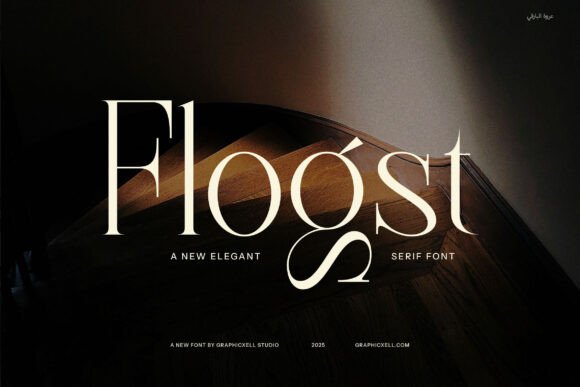
Flogst Font: Elevate Your Design with Elegance and Sophistication
In the world of typography, a well-crafted font can make all the difference in elevating a design from ordinary to extraordinary. Introducing Flogst Elegant Serif, a refined and modern typeface that exudes sophistication and artistic flair. Designed with smooth curves, sharp serifs, and graceful proportions, this font strikes the perfect balance between timeless elegance and contemporary style.
Key Features of Flogst Elegant Serif
- Smooth Curves and Sharp Serifs: Flogst’s elegant design combines smooth curves with sharp serifs, creating a visually appealing contrast that adds depth and sophistication to any design.
- Beautifully Crafted Ligatures and Stylish Alternates: The font features beautifully crafted ligatures and stylish alternates, allowing for creative and fluid typography that adds a sense of exclusivity to any project.
- High-Contrast Strokes and Well-Proportioned Letterforms: The high-contrast strokes and well-proportioned letterforms ensure both visual impact and effortless readability, making Flogst suitable for a wide range of design applications.
Design Applications for Flogst Elegant Serif
Flogst Elegant Serif is a versatile font that can be used in various design applications, including:
- Luxury Branding: Create a sophisticated and luxurious brand identity with Flogst’s elegant design.
- Editorial Layouts: Add a touch of elegance to editorial layouts, such as magazine headlines and articles.
- High-End Packaging: Elevate product packaging with Flogst’s refined and modern design.
- Web Design: Use Flogst to create a polished and upscale aesthetic for websites and digital applications.
Typography Tips for Using Flogst Elegant Serif
To get the most out of Flogst Elegant Serif, consider the following typography tips:
- Pair with Modern Sans-Serif Fonts: Pair Flogst with modern sans-serif fonts for a contemporary contrast that adds visual interest to any design.
- Use Ligatures and Alternates: Take advantage of Flogst’s beautifully crafted ligatures and stylish alternates to add a sense of exclusivity to your typography.
- Experiment with Font Sizes: Experiment with different font sizes to create visual hierarchy and add emphasis to specific design elements.
Design Inspiration with Flogst Elegant Serif
Flogst Elegant Serif is a font that inspires creativity and sophistication. Here are some design inspiration ideas to get you started:
- Fashion Labels: Use Flogst to create a luxurious and sophisticated brand identity for fashion labels.
- Boutique Branding: Elevate boutique branding with Flogst’s refined and modern design.
- Premium Advertisements: Create premium advertisements with Flogst’s elegant design and sophisticated typography.
The Benefits of Using Flogst Elegant Serif
Flogst Elegant Serif offers a range of benefits for designers, including:
- Timeless Elegance: Flogst’s elegant design ensures a timeless aesthetic that won’t go out of style.
- Versatility: The font is versatile and can be used in a wide range of design applications.
- Sophistication: Flogst adds a sense of sophistication and exclusivity to any design.
In conclusion, Flogst Elegant Serif is a refined and modern typeface that exudes sophistication and artistic flair. With its smooth curves, sharp serifs, and graceful proportions, this font strikes the perfect balance between timeless elegance and contemporary style. Whether for luxury branding, editorial layouts, high-end packaging, or web design, Flogst enhances any project with a polished and upscale aesthetic.